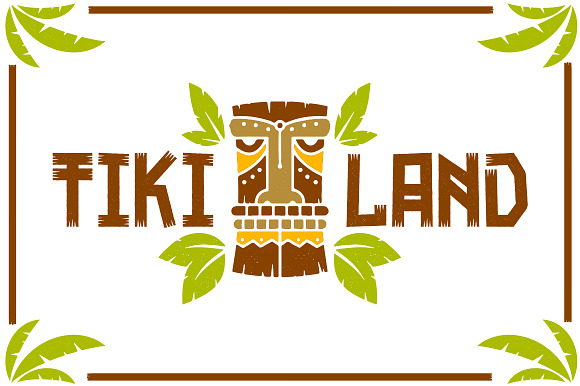
Tikiland Typeface
Tikiland is a fun and unique display typeface. This typeface is great for logos, tittle, headline, tagline, tshirt, handwritten quotes, product packaging, poster, merchandise, social media, labels, branding, greeting cards, etc.
Tikiland Typeface by PutraCetol Studio fits naturally into Branding, posters, packaging, typography.